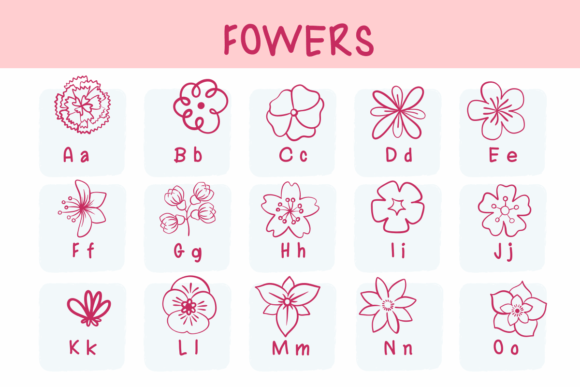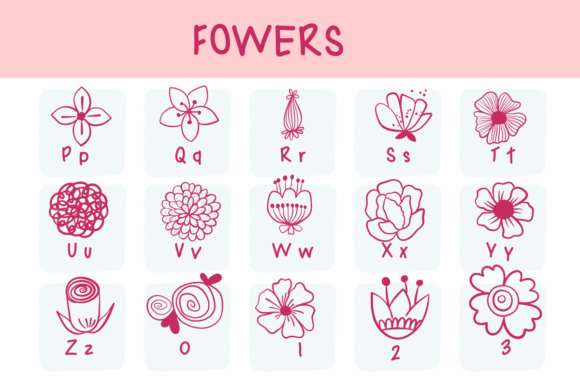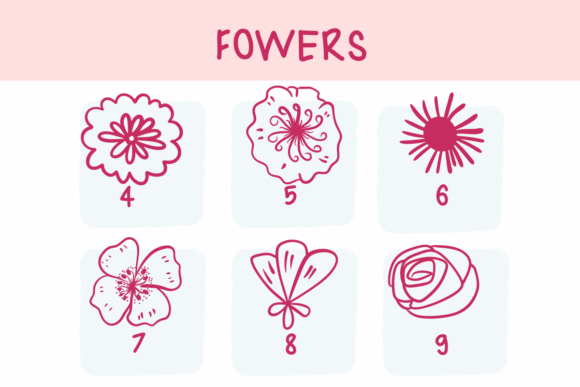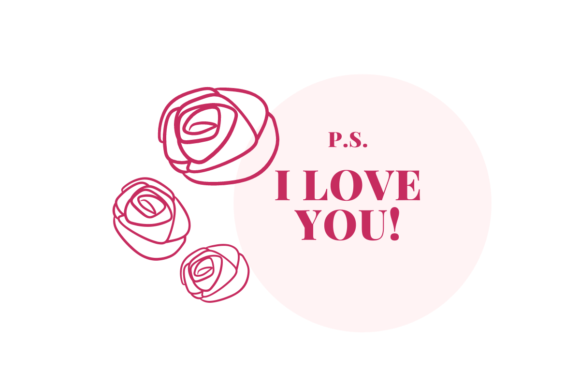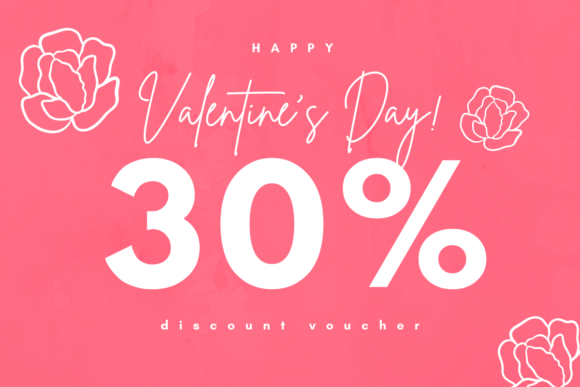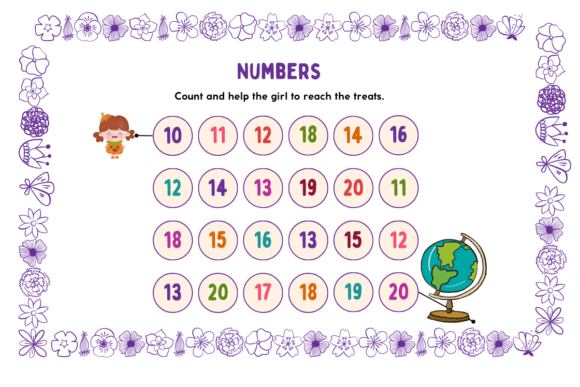
Introducing Flowers Font: The Perfect Addition to Your Creative Projects
Are you a designer, crafter, or DIY enthusiast looking for a unique and charming font to elevate your creative projects? Look no further than Flowers Font, a lovely and cute dingbats font that’s sure to add a touch of elegance and whimsy to your designs. In this article, we’ll explore the features and benefits of Flowers Font, and show you how it can enhance your wedding invitations, DIY projects, crafts, decorations, logos, and many other creative ideas.
What is Flowers Font?
Flowers Font is a dingbats font, which means it’s a collection of graphical symbols and illustrations, rather than traditional letters and numbers. This font features a wide range of beautiful and delicate flower illustrations, perfect for adding a touch of nature and beauty to your designs. With Flowers Font, you can create stunning visual elements, from simple and elegant to complex and intricate, that will make your projects stand out.
Features of Flowers Font
So, what makes Flowers Font so special? Here are just a few of its key features:
- Lovely and cute designs: Flowers Font features a wide range of adorable flower illustrations, from simple and minimalist to intricate and detailed.
- Elegant and whimsical: This font is perfect for adding a touch of elegance and whimsy to your designs, making it ideal for wedding invitations, baby shower decorations, and other special occasions.
- Easy to use: Flowers Font is a dingbats font, which means you can use it just like any other font in your design software. Simply type in the corresponding keyboard shortcut, and the flower illustration will appear.
- Scalable: Flowers Font is highly scalable, which means you can use it in a variety of sizes and applications, from small crafts to large banners.
Using Flowers Font in Your Creative Projects
So, how can you use Flowers Font in your creative projects? Here are just a few ideas to get you started:
- Wedding Invitations: Add a touch of elegance and romance to your wedding invitations with Flowers Font. Use it to create beautiful floral arrangements, borders, and other design elements.
- DIY Crafts: Flowers Font is perfect for DIY crafts, such as card making, scrapbooking, and paper crafting. Use it to create custom embellishments, borders, and other design elements.
- Decorations: Use Flowers Font to create beautiful decorations for special occasions, such as baby showers, birthday parties, and holiday gatherings.
- Logos and Branding: Flowers Font can also be used to create custom logos and branding elements, such as watermarks, icons, and social media graphics.
Tips and Tricks for Using Flowers Font
Here are a few tips and tricks for getting the most out of Flowers Font:
- Experiment with different sizes and colors: Flowers Font is highly scalable, so don’t be afraid to experiment with different sizes and colors to find the perfect look for your project.
- Combine with other fonts and graphics: Flowers Font can be combined with other fonts and graphics to create stunning visual elements. Try pairing it with a script font or a bold sans-serif font for a unique look.
- Use it sparingly: While Flowers Font is beautiful and eye-catching, it can also be overwhelming if used too much. Use it sparingly to create a focal point or add a touch of elegance to your design.
In conclusion, Flowers Font is a lovely and cute dingbats font that’s perfect for adding a touch of elegance and whimsy to your creative projects. With its wide range of beautiful flower illustrations, ease of use, and scalability, Flowers Font is a versatile and valuable addition to any designer’s or crafter’s toolkit. Whether you’re creating wedding invitations, DIY crafts, decorations, logos, or other creative projects, Flowers Font is sure to inspire and delight.